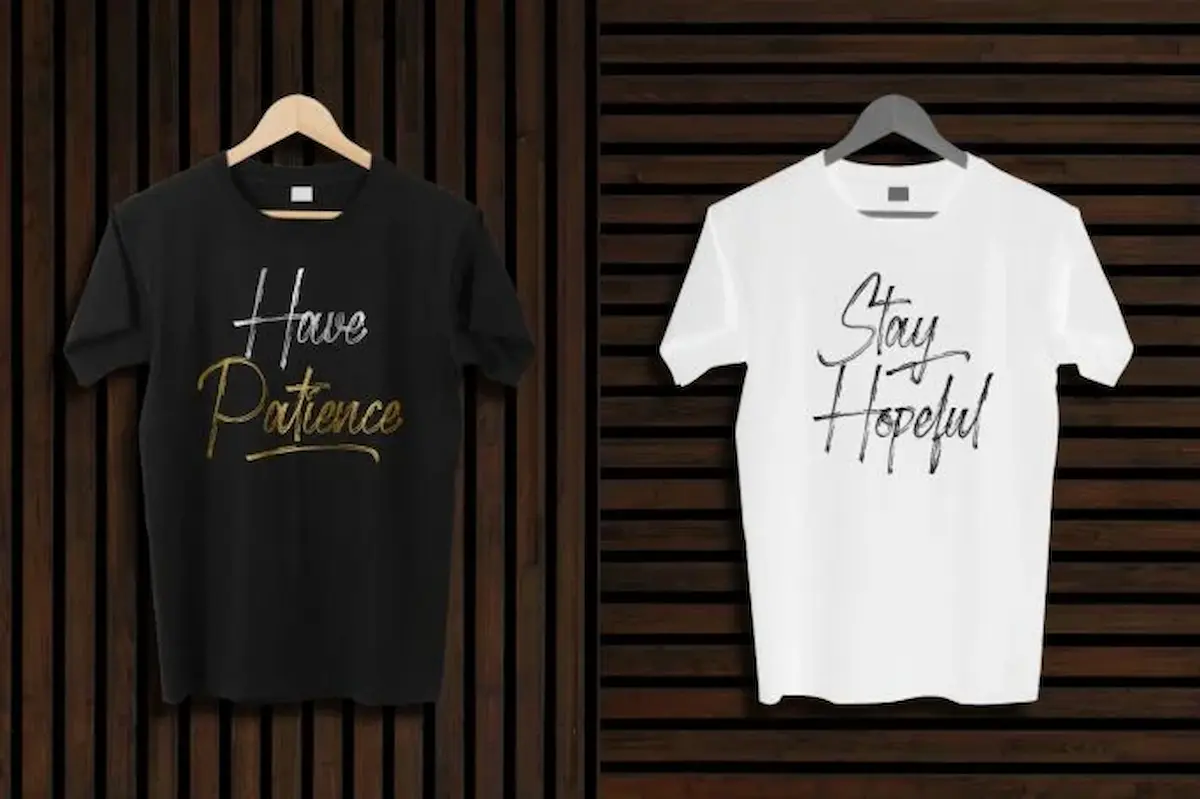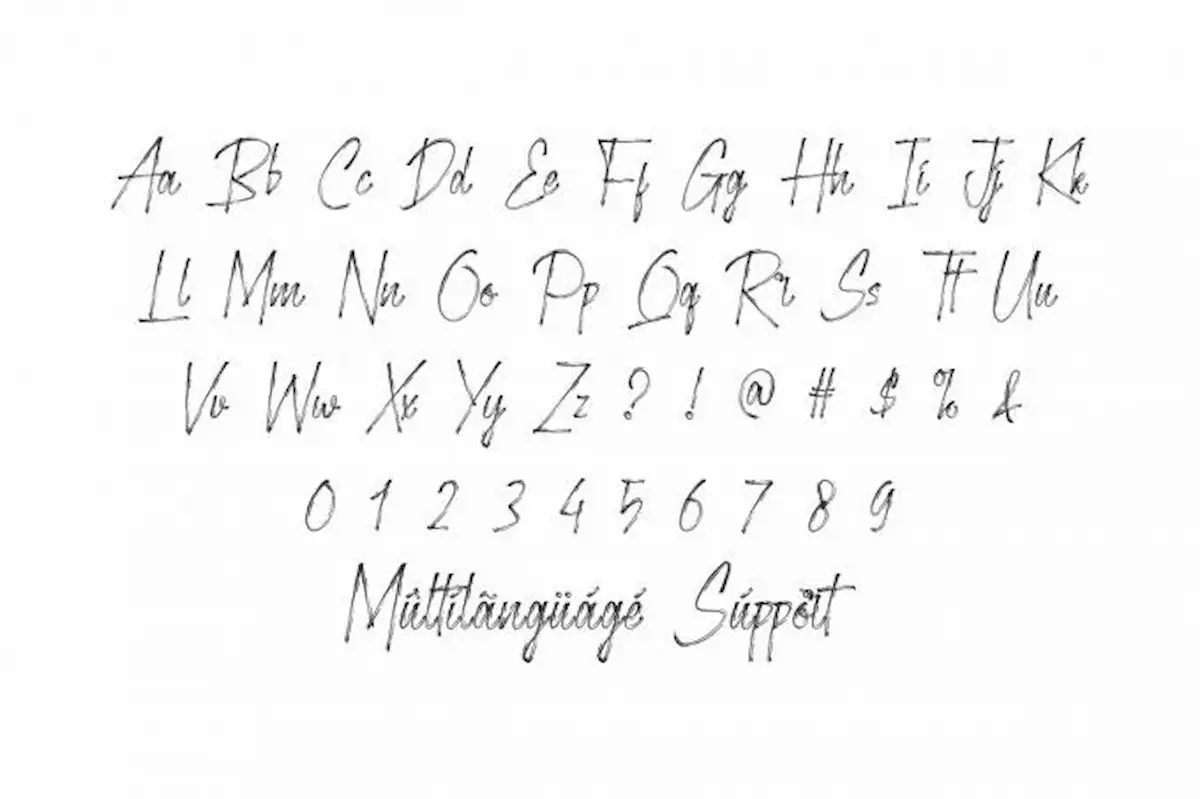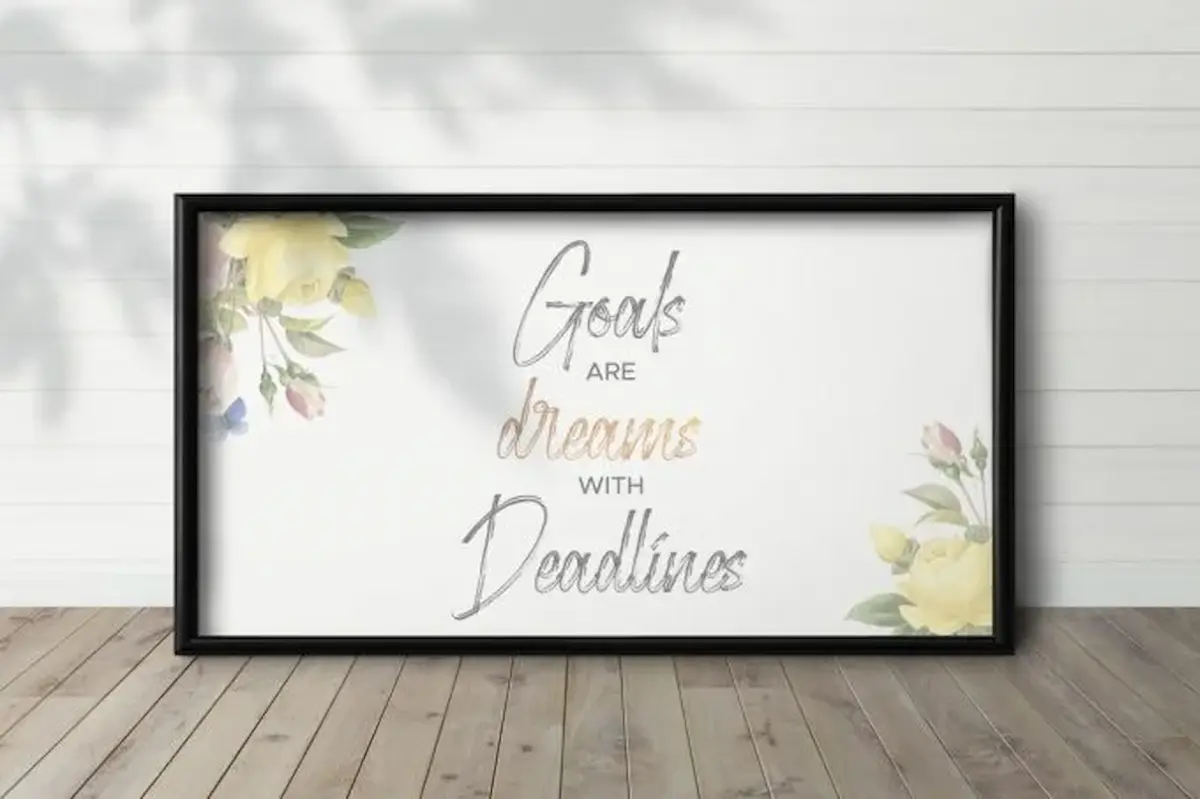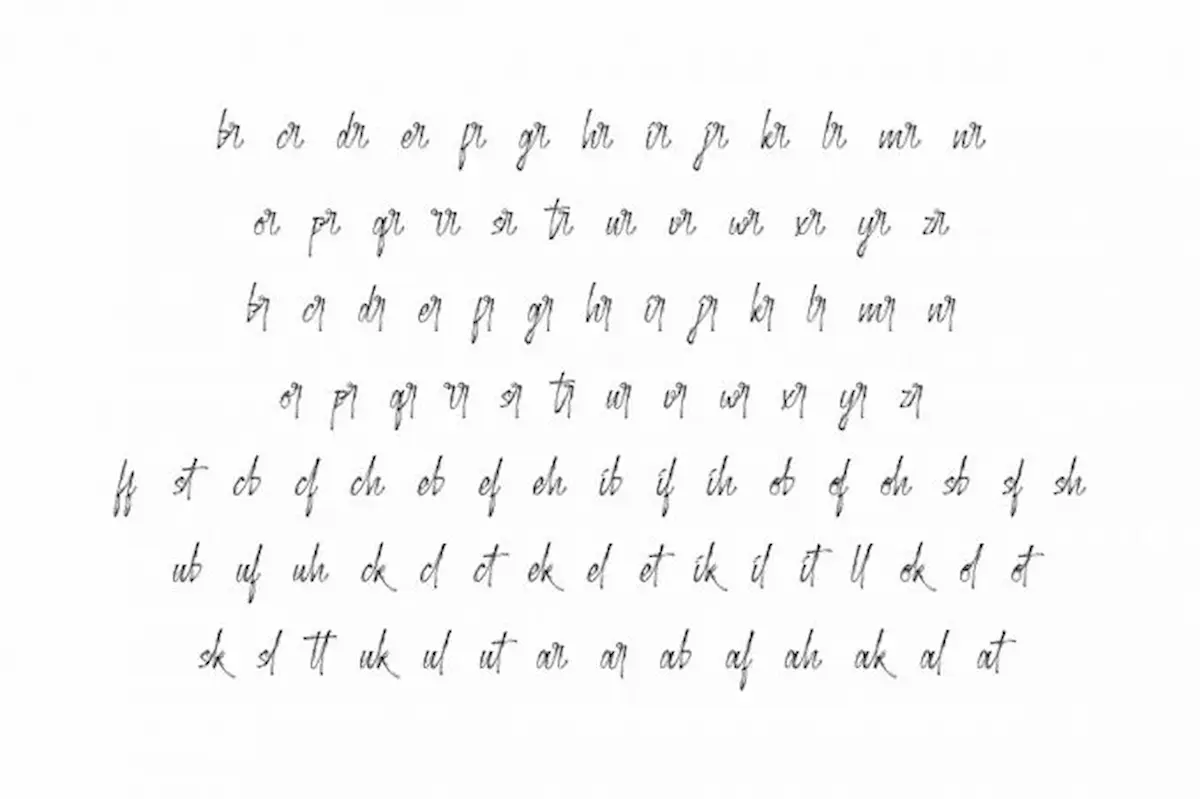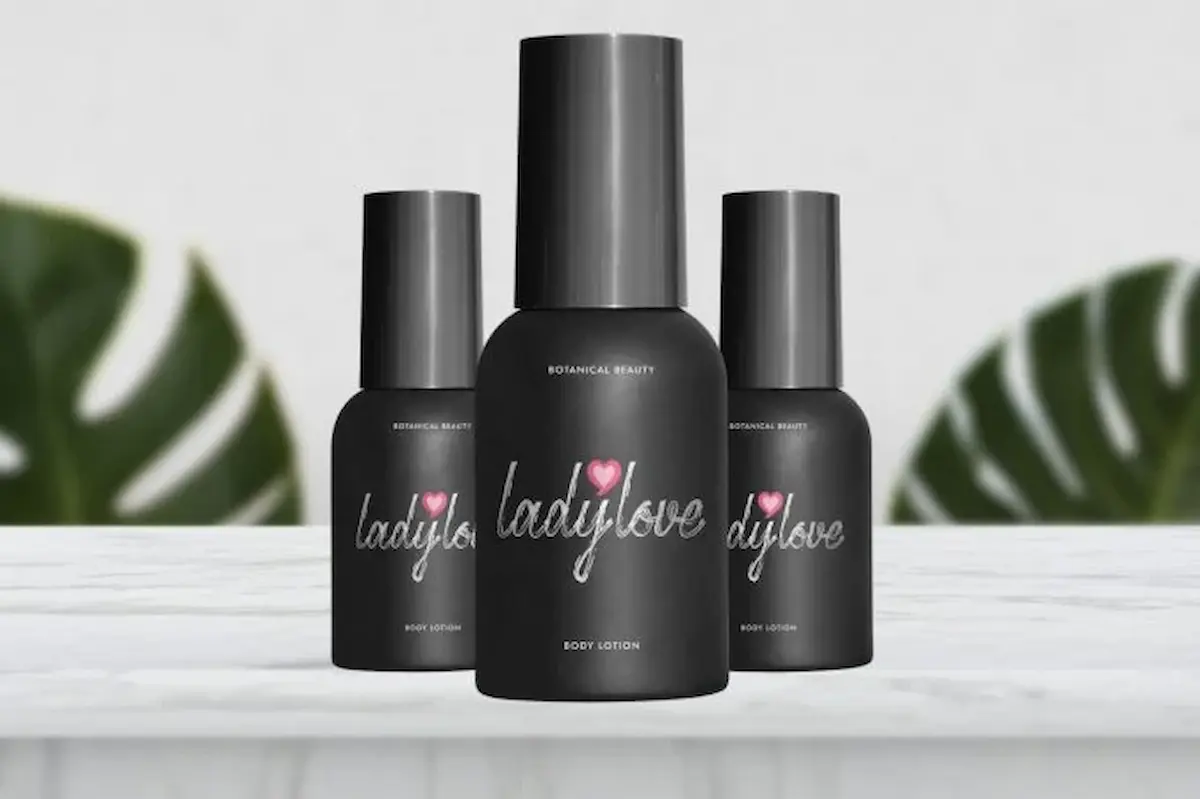
Stockholder Font is a dry rough brush script font by NihStudio since 2020. Made in Indonesia. Download Now Stockholder font.
Stockholder is a textured brush hand lettering font. Originally made in 2020 by NihStudio Font Designer : Widiyanti and Sarah. On the package you will get :
The theme style of the Stockholder is unique, mysterious, dark, horror, movie, sporty, gamer, motorcycle brush style. The font will be match for this typeface: events, artist, musician, cafe, coffee, promotion, etc